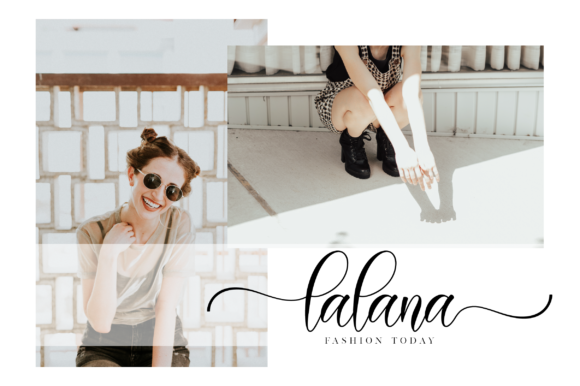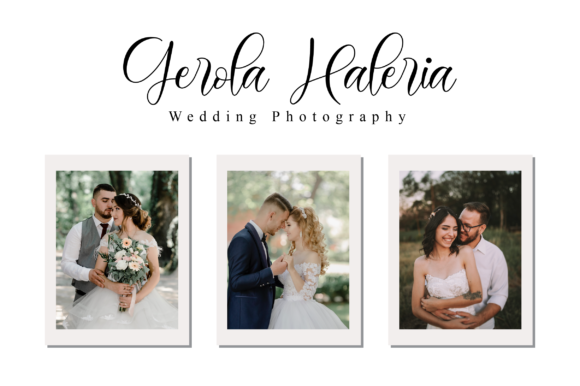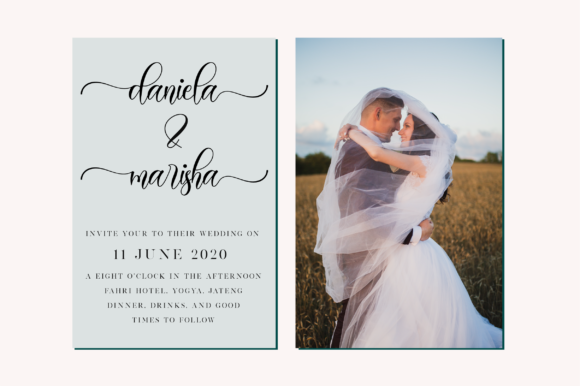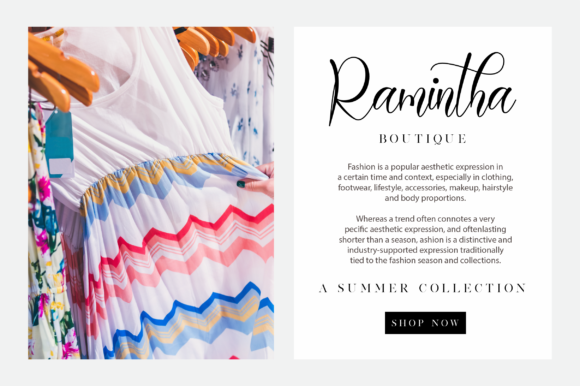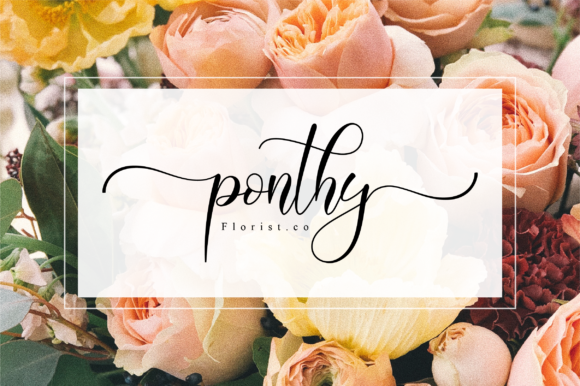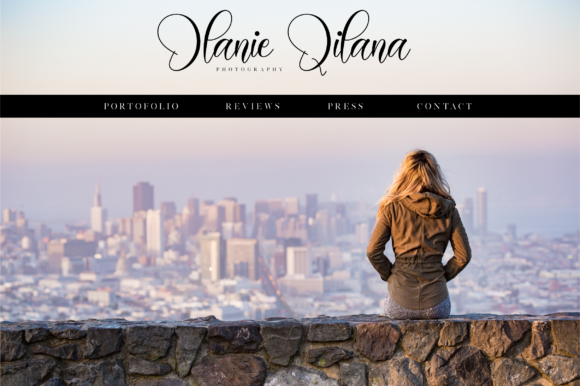
Introduction to Richgole Font
Richgole is stunning and enchanting, but also incredibly modern.
This versatile script font has a wide range of applications ranging from greeting cards to headlines and is guaranteed to add a romantic feel to your next project This font is PUA encoded which means you can access all of the beautiful glyphs and swashes with ease.